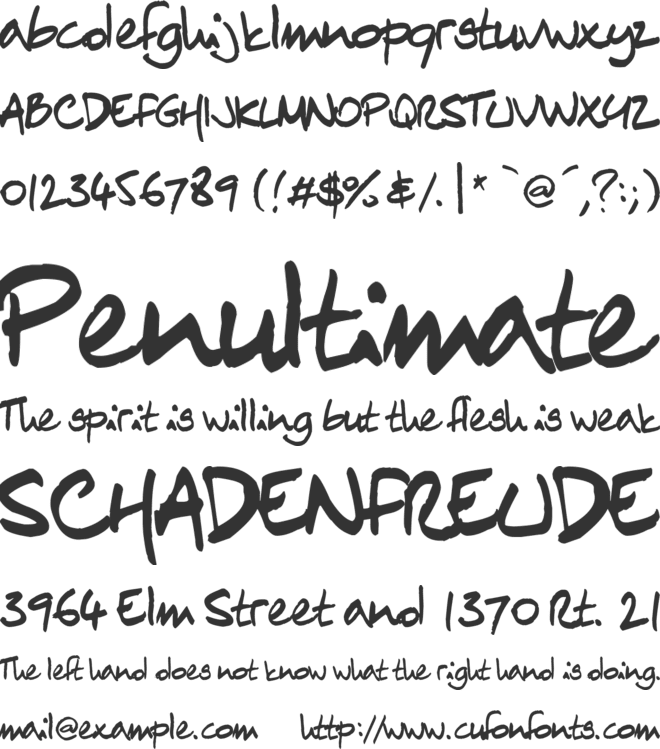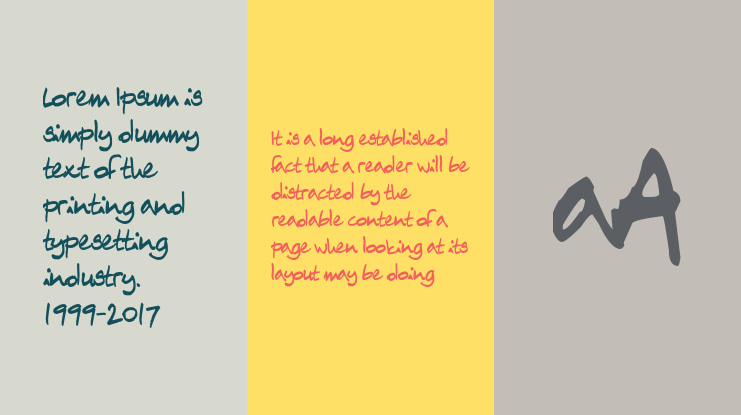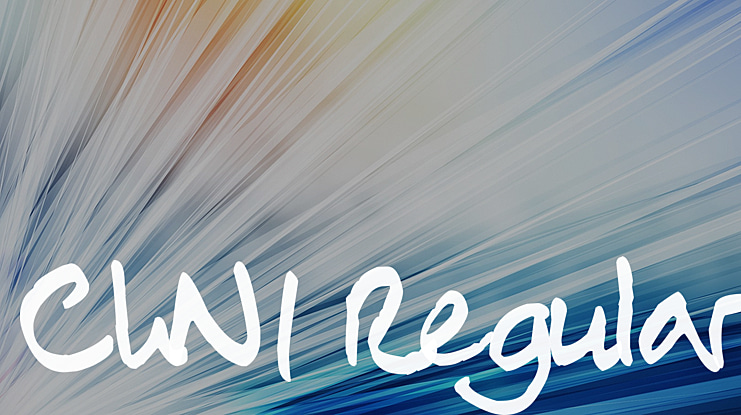
ChN1 Font
Comic style handwriting for casual publications and comic strips. Created by Antoine "ChN1" RAVNICH from his own handwriting. I've taken care to include as many symbols and special characters as I could think of, which makes it a super complete set, hope you'll like it!